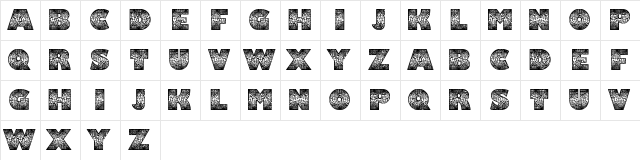
Lacy Regular Free Font
Lacy Regular
Design Context for Lacy
Lacy is a composed and adaptable typeface that performs quietly and consistently across a wide range of design contexts.